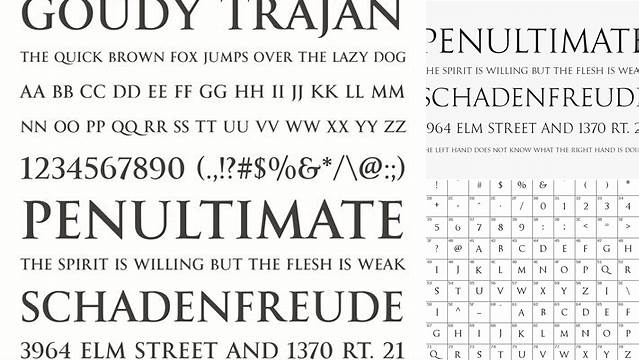
Hey everyone! Are you on the hunt for the classic and elegant Goudy Trajan font? Well, you've come to the right place! This article is your ultimate guide to everything about the Goudy Trajan font, from where to get it for free to how to use it like a pro. We'll dive into its history, its distinct features, and how it can elevate your designs. So, buckle up, guys, because we're about to embark on a typography adventure!
1. Unveiling the Allure of Goudy Trajan Font
Let's start with the basics. The Goudy Trajan font, or simply Trajan, is a serif typeface that's instantly recognizable. It's known for its classic, timeless appeal and its ability to add a touch of sophistication to any project. This font is based on the inscription on Trajan's Column in Rome, dating back to 113 AD. The inspiration from ancient Roman letterforms is what gives Trajan its distinctive look. It's characterized by its clean lines, high contrast, and elegant serifs. Goudy Trajan font is a popular choice for a wide range of design applications, including headlines, logos, invitations, and more. It's a font that whispers elegance and authority.
Its enduring popularity stems from its ability to communicate both heritage and modernity simultaneously. It feels both familiar and fresh, making it a versatile choice for designers across industries. The font's clean geometry allows for easy readability, making it perfect for both print and digital media. Whether you're designing a website, a poster, or a business card, Goudy Trajan font can help you create a lasting impression. The attention to detail in the letterforms is a testament to its designer, Frederic Goudy, who masterfully adapted the classic Roman letterforms for the printing press. The font's versatility is also a major factor in its widespread use. It can be paired with a wide variety of fonts, making it a seamless addition to any design aesthetic. The simplicity of the font also adds to its charm. It doesn't require a lot of bells and whistles to get its message across. The elegance is in the design itself. Its clean lines and timeless appeal make it a go-to choice for many designers.
2. The History and Origins of Goudy Trajan Typeface
Alright, let's take a trip back in time! The story of the Goudy Trajan font is as fascinating as the font itself. It all began with Trajan's Column, a monument erected in Rome to commemorate Emperor Trajan's victory in the Dacian Wars. The inscription on the column, meticulously carved by artisans, became the inspiration for the typeface. Frederic Goudy, a renowned American typographer, was captivated by these ancient Roman letterforms. He set out to create a typeface that captured the essence of the inscription. In the early 20th century, Goudy designed the original Goudy Trajan font, adapting the classic letterforms for use in printing. This font, first released in 1904, was an instant success. It quickly gained popularity for its elegance and readability. It was designed to capture the spirit of the original Trajan's Column inscription. The font's design was very faithful to its historical source, making it a unique addition to the typographic landscape.
The design of the Goudy Trajan font represents a significant bridge between the past and the present. The font's enduring appeal lies in its timelessness and adaptability. Goudy meticulously studied the proportions, the serifs, and the overall structure of the Roman letterforms. He adapted these characteristics to create a typeface that was both beautiful and functional. The font was quickly adopted by publishers, designers, and advertisers alike. The font's elegance and its inherent legibility made it a favorite for a wide variety of projects. The font's history is an inspiring one. It's a story of how a designer was inspired by the artistry of the past, giving birth to a design that would become a mainstay of the design world. The font's origins showcase a blend of ancient inspiration and modern execution, making it a truly remarkable design achievement.